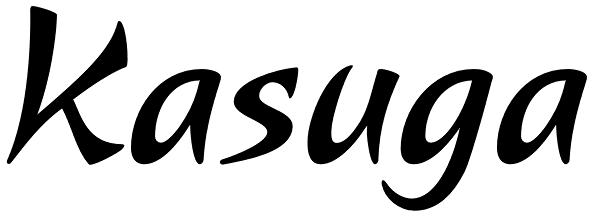
Kasuga
Kasuga, Japanese for spring day, is a contemporary script with eastern influence. Kasuga's pointed and fluid brush strokes evoke the orient with just a hint of the west. Kasuga is perfect for designs that need an Asian atmosphere.